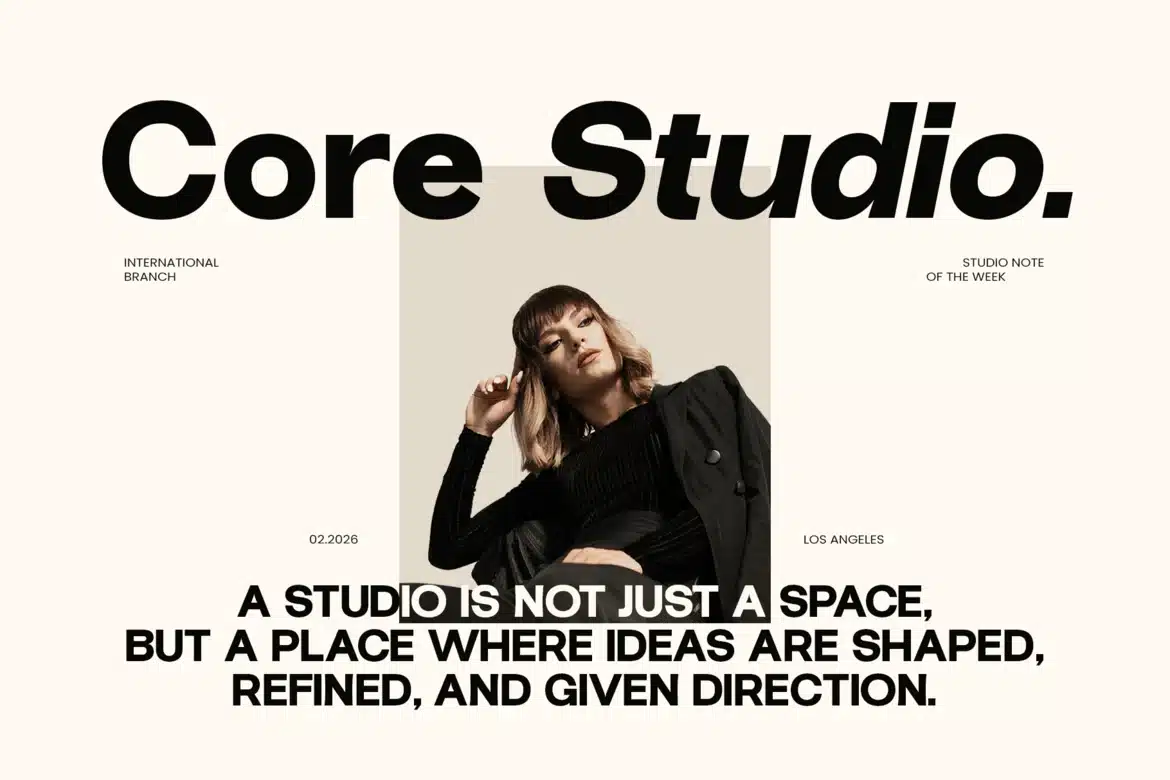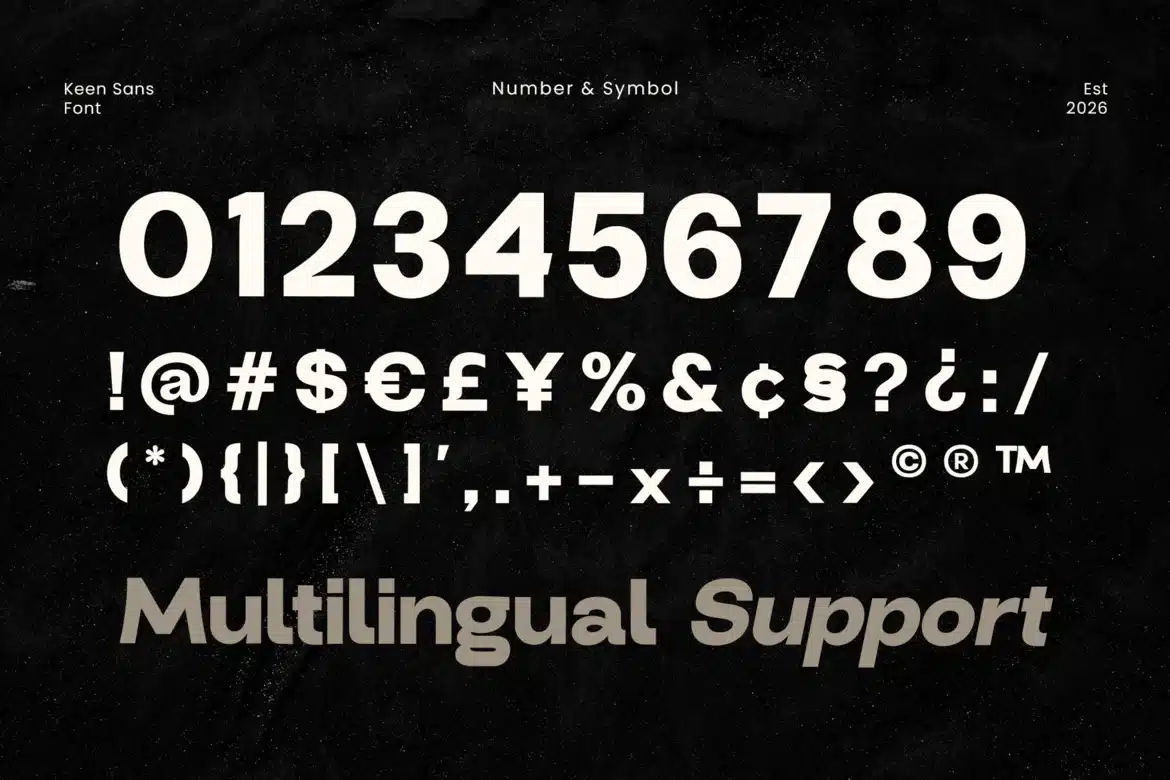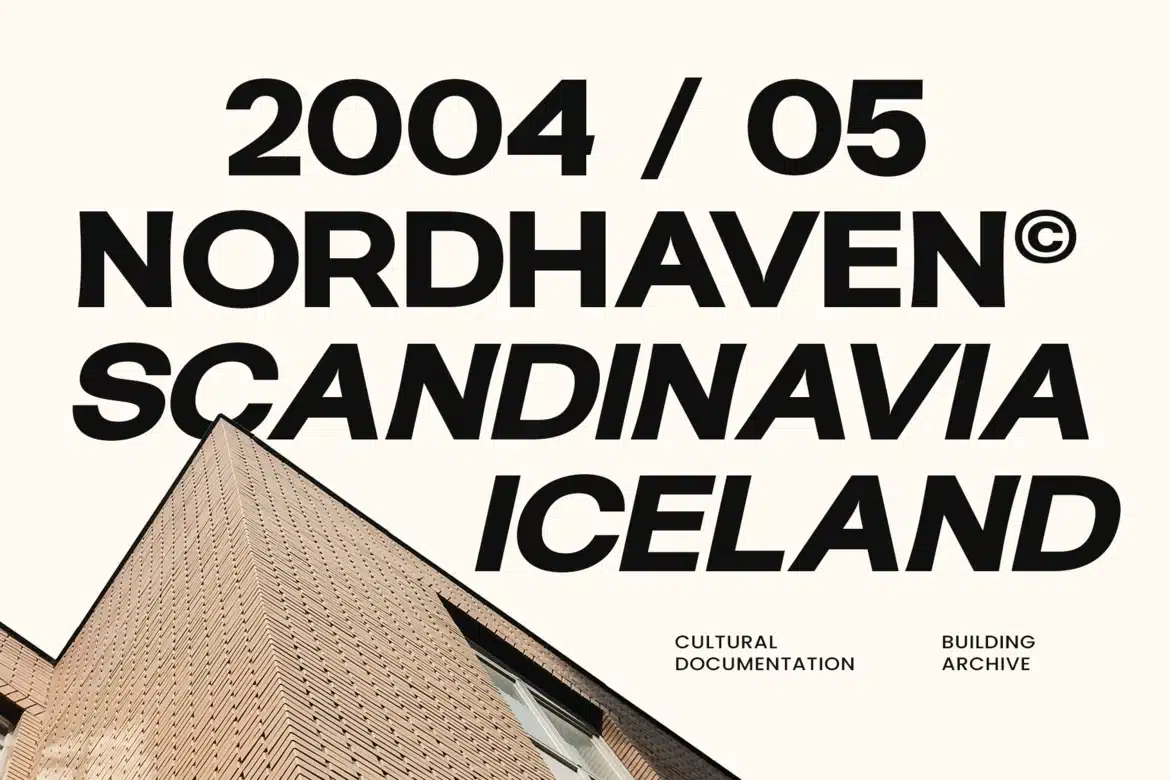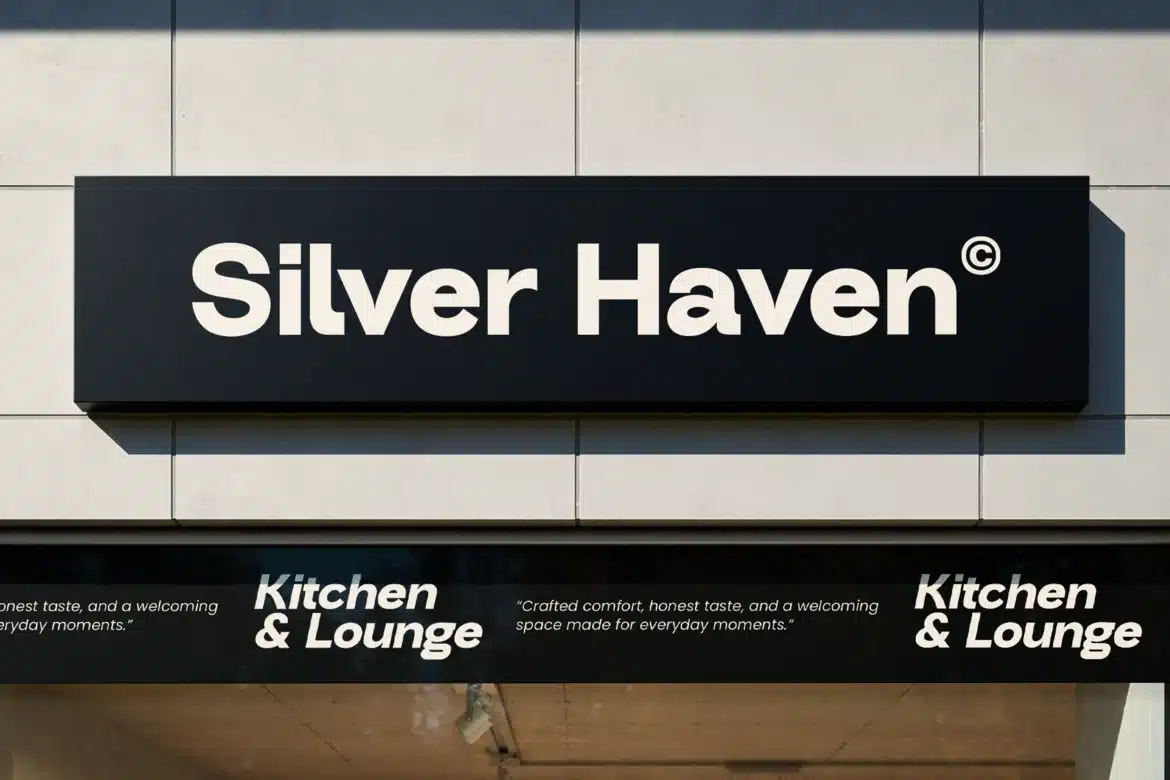
Keensans – Modern Geometric Sans Serif Font
Keensans is a modern sans serif typeface designed with clean geometry and balanced proportions. Inspired by contemporary Scandinavian design, it delivers a minimalist and professional look suitable for a wide range of creative projects.
With its clear letterforms and excellent readability, Keensans performs beautifully in headlines, branding, and long-form text. The Regular and Oblique styles provide flexibility while maintaining a consistent visual tone across layouts.
Features
Uppercase & lowercase characters
Numerals & punctuation
Regular & Oblique styles
Multilingual support
Modern, geometric design